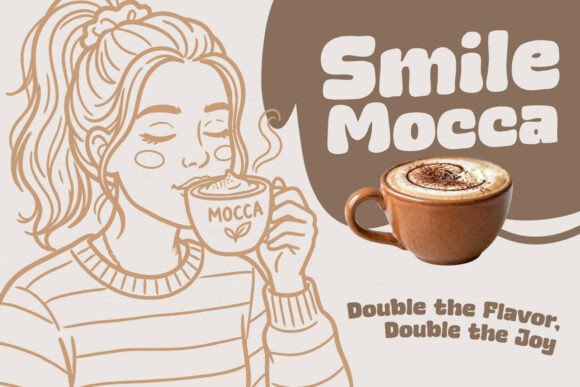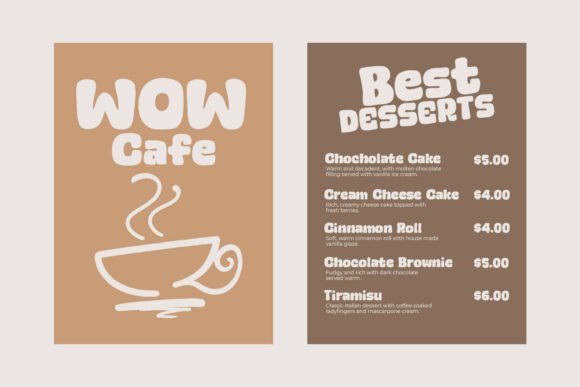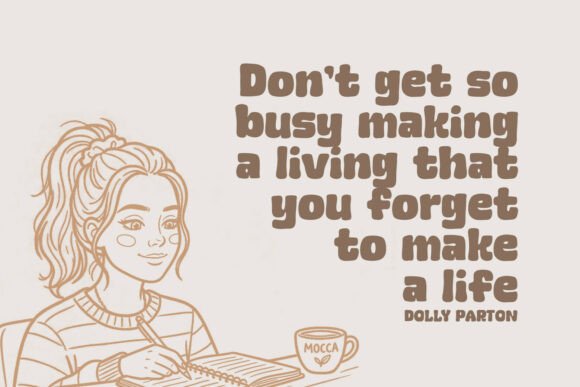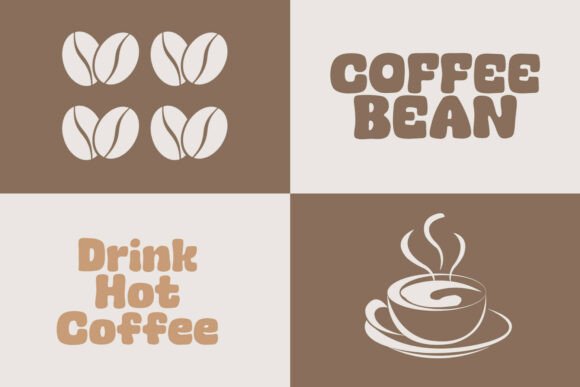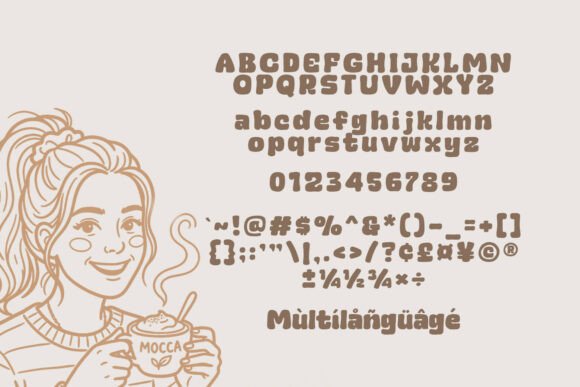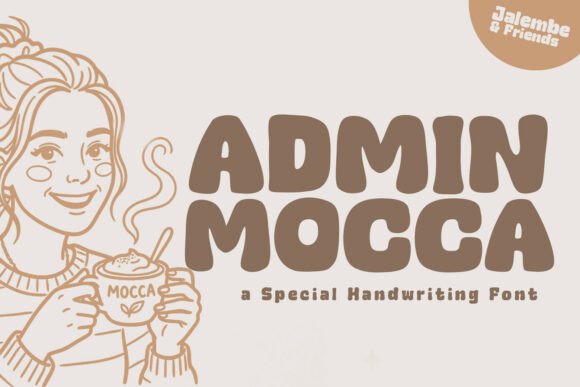
Introducing Admin Mocca Font: The Perfect Addition to Your Design Arsenal
Are you a designer or crafter looking for a font that can elevate your creative projects? Look no further than Admin Mocca Font! This modern and cute display font is perfect for a wide range of applications, from posters and logos to magazines, book covers, and banners. With its unique and stylish design, Admin Mocca Font is sure to make your projects stand out from the crowd.
What Makes Admin Mocca Font So Special?
Admin Mocca Font is a versatile and highly adaptable font that can be used in a variety of contexts. Its modern and cute design makes it perfect for projects that require a touch of playfulness and sophistication. Whether you’re working on a logo, poster, or magazine cover, Admin Mocca Font is sure to add a professional and stylish touch.
One of the key features that sets Admin Mocca Font apart from other fonts is its ability to be matched with an incredibly large set of projects. Whether you’re working on a children’s book, a fashion magazine, or a restaurant menu, Admin Mocca Font can easily be integrated into your design. This font is perfect for designers and crafters who want to add a unique and stylish touch to their projects.
The Benefits of Using Admin Mocca Font
There are many benefits to using Admin Mocca Font in your design projects. Here are just a few:
• Unique and Stylish Design: Admin Mocca Font has a modern and cute design that is sure to make your projects stand out.
• Versatility: This font can be used in a wide range of contexts, from posters and logos to magazines and book covers.
• Ease of Use: Admin Mocca Font is easy to use and can be integrated into your design projects with ease.
• Professional and Stylish Touch: This font adds a professional and stylish touch to any project, making it perfect for designers and crafters who want to elevate their designs.
How to Use Admin Mocca Font in Your Design Projects
In conclusion, Admin Mocca Font is a modern and cute display font that is perfect for designers and crafters who want to elevate their creative projects. With its unique and stylish design, versatility, and ease of use, Admin Mocca Font is sure to become a staple in your design arsenal. Whether you’re working on a poster, logo, magazine, or book cover, Admin Mocca Font is the perfect addition to your design.